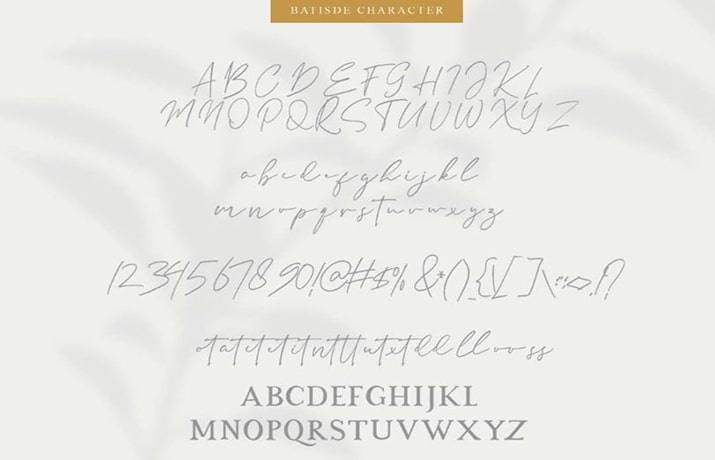
Batisde Font is a classic-style serif typeface that has been modernized with its minimalistic script making it one of the most memorable caps fonts on the market.
This amazing typeface can be used for wordmark logos, mastheads, pull quotes & monograms showing both feminine and masculine qualities.
This is a font duo with handwritten script and serif fonts, created to give your next project a natural yet stylistic look! Combining 2 typefaces together works great.
Style:Serif, Script, Display
Due to its modern look, it is ideal for magazines, Movies, or Book Titles. For Photography, Wedding Invitation, Restaurant Menu or T-shirt Design. For Flyers, Banner Ads, web, and printing. From Food and Fashion to Cosmetics products.
This typeface comes in a single regular weight that possesses both Open and True Type features. It contains uppercase, lowercase, numbers, punctuation, and symbols and supports multilingual.